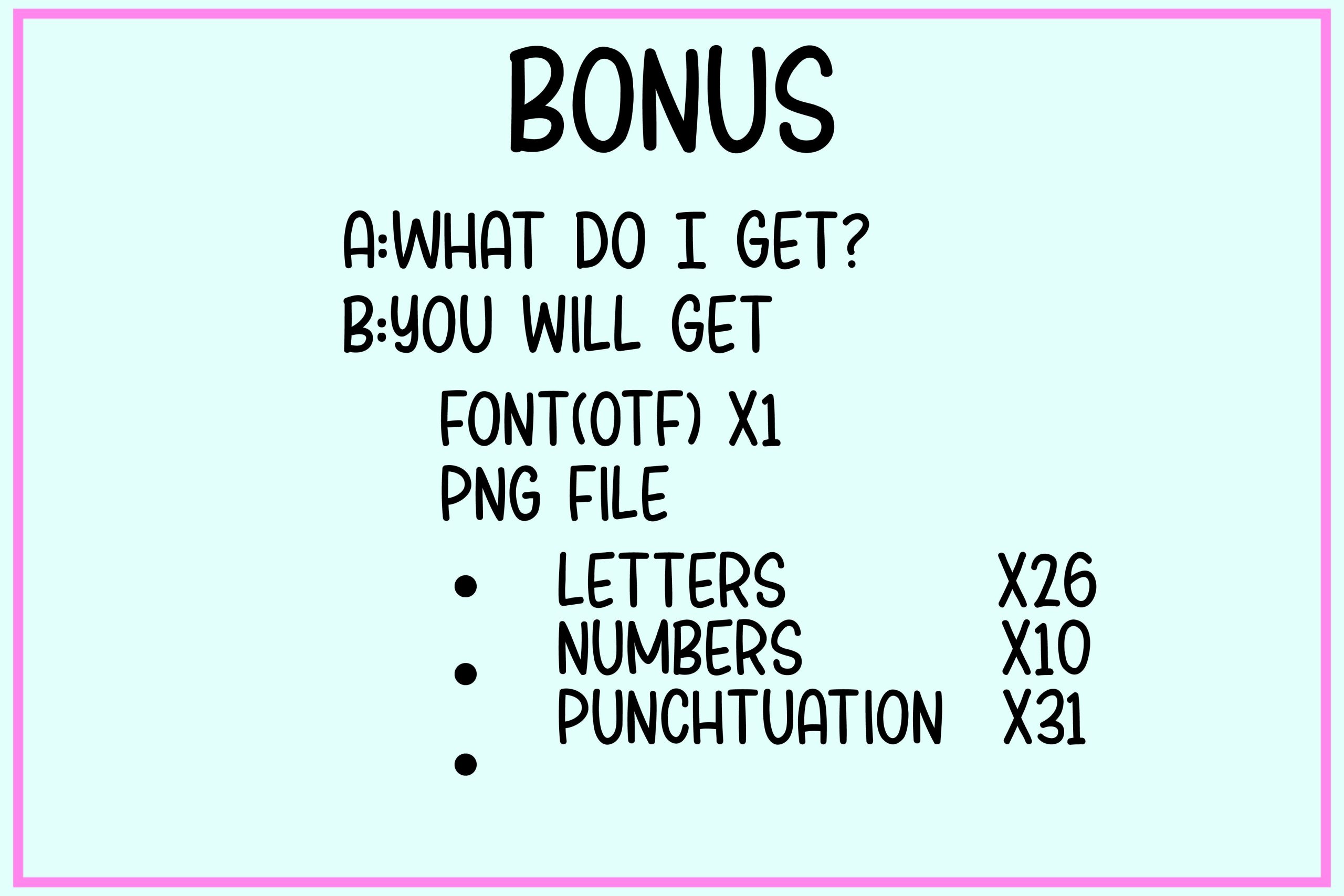
Nurse Valentine Font
Nurse Valentine is a friendly colorful font with a nurse theme. It embodies playfulness and is the perfect choice for pretty much anything that requires a jolly touch.